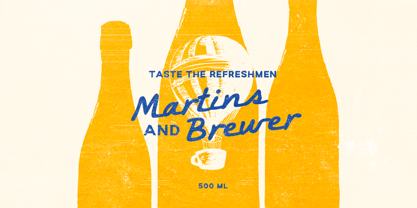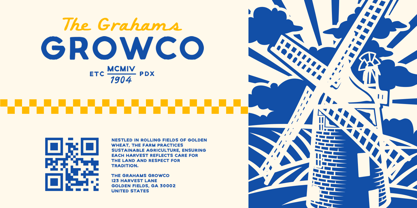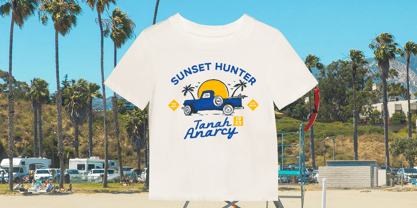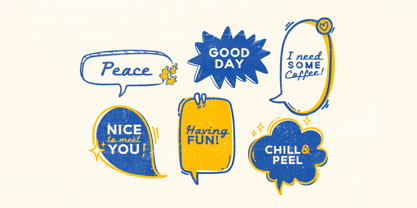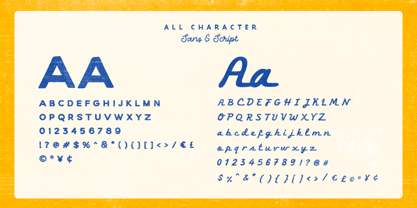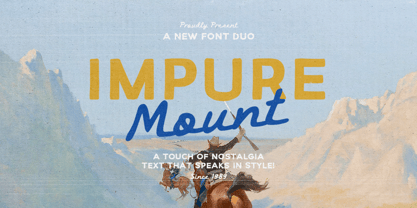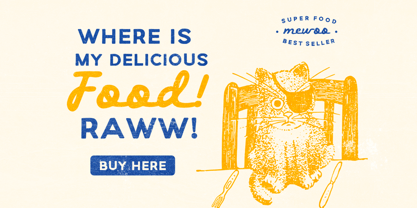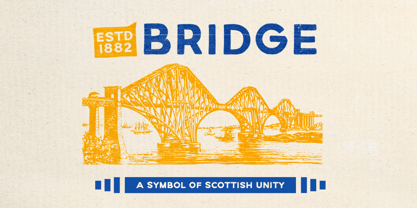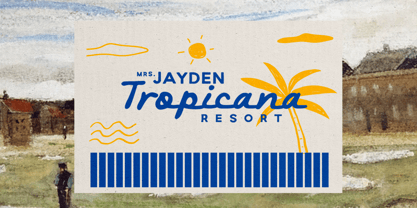
Impure Mount
by Bale Type
The Impure Mount Font Family was designed by Sarid Ezra, Dzikrul Aulia, Liwa Shidqy and published by Bale Type. Impure Mount contains 2 styles and family package options. More about this family
Impure Mount is a nostalgic font duo that contains simple sans and unique script that made by hand lettering style. You can use this font for any purpose such as poster, book cover, logo, branding and quote as well. This font is suitable for project that have outdoor and adventure themes. Impure Mount also support multi language.